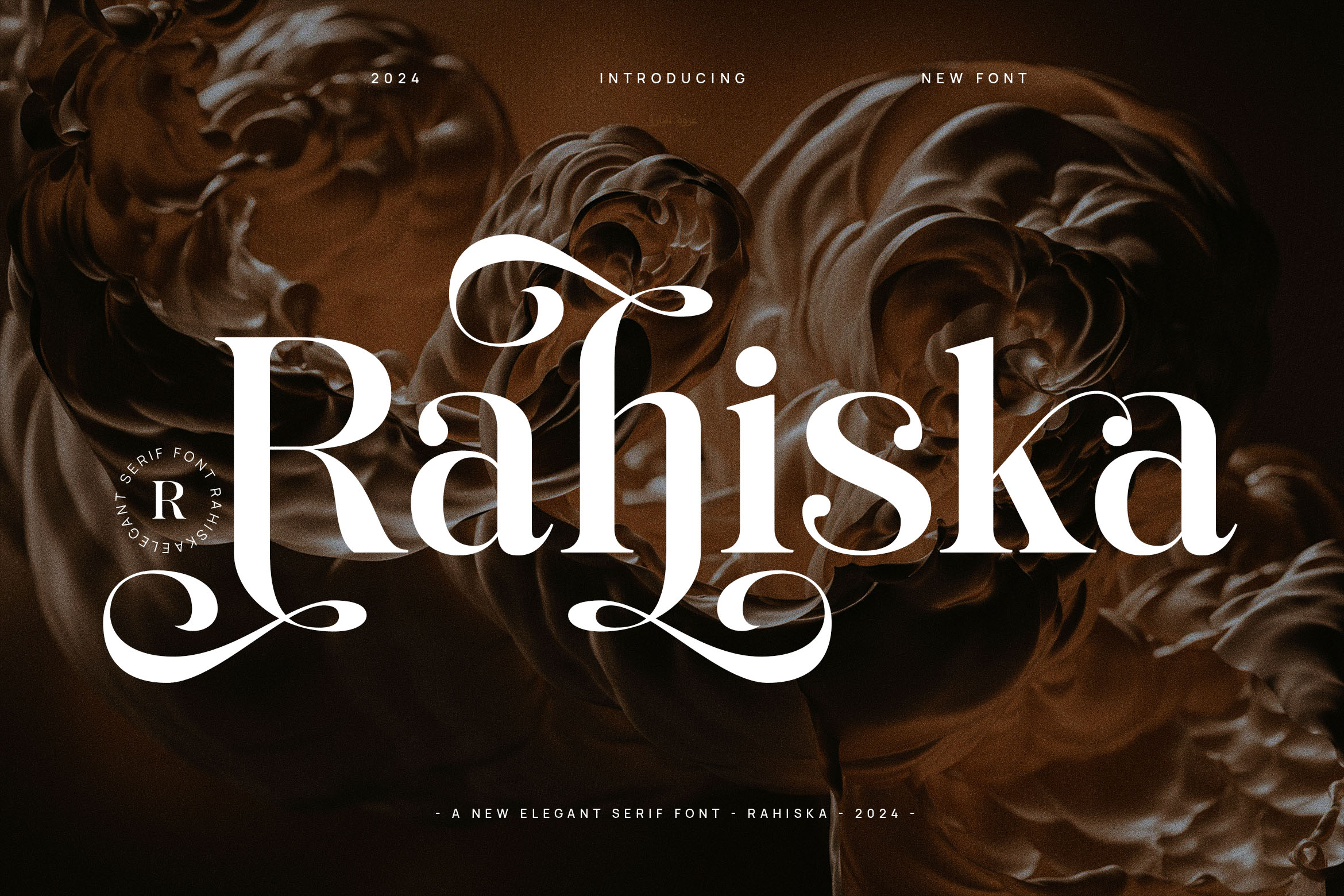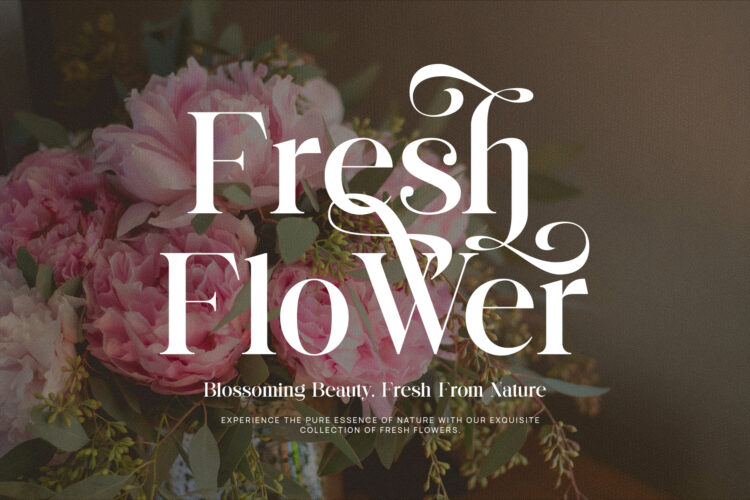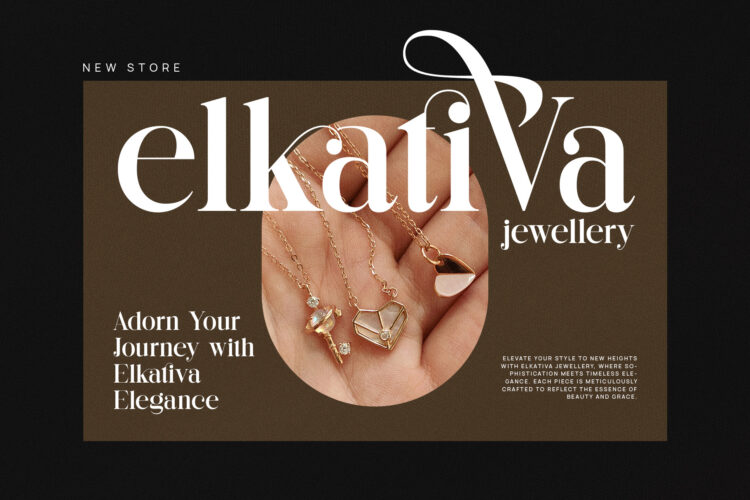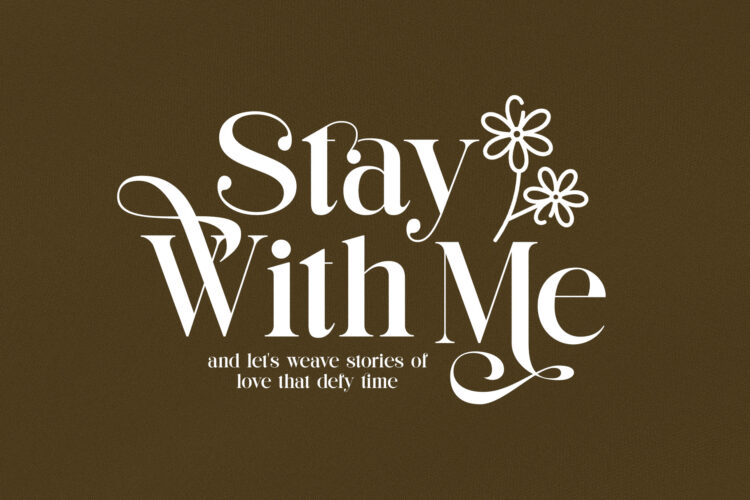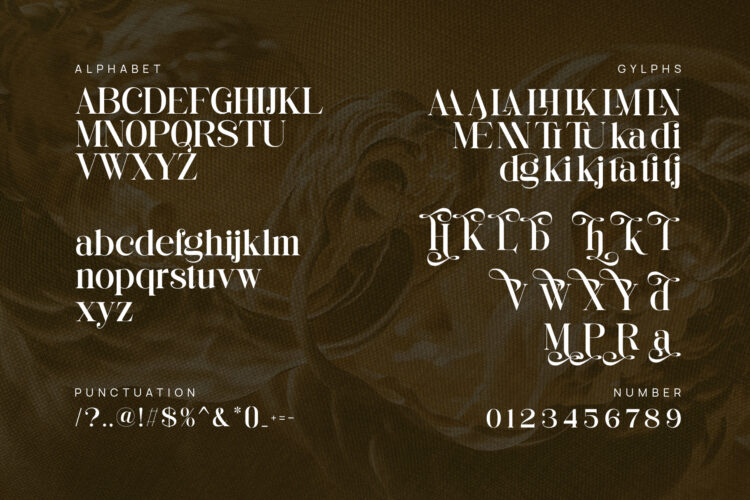
Introducing our new Rahiska, modern serif font with elegant style this is perfect for branding, logos, invitation, magazines, product packaging and more.
Rahiska – Elegant & Classy Serif